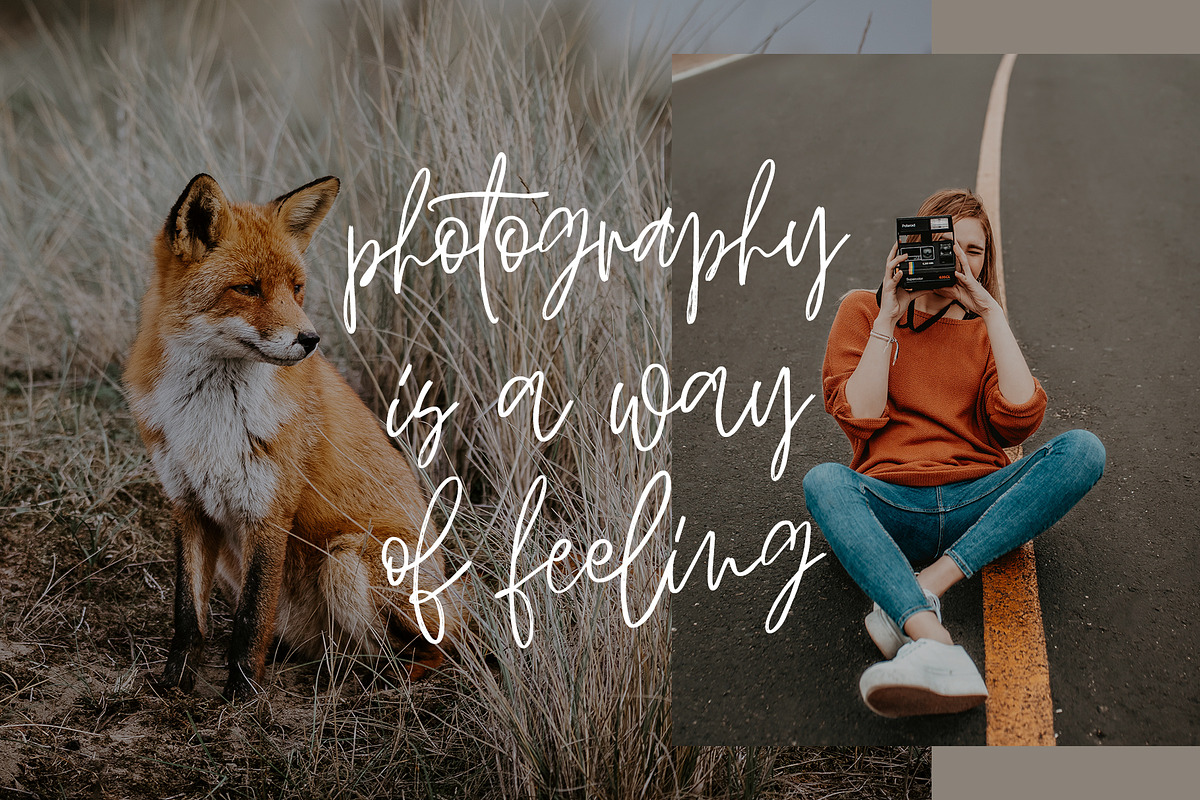
Shadow Script is a signature script font. The font includes full set of lovely uppercase and lowercase letters, multilingual symbols, numerals and punctuation. It is so perfect for invitations, monograms etc.